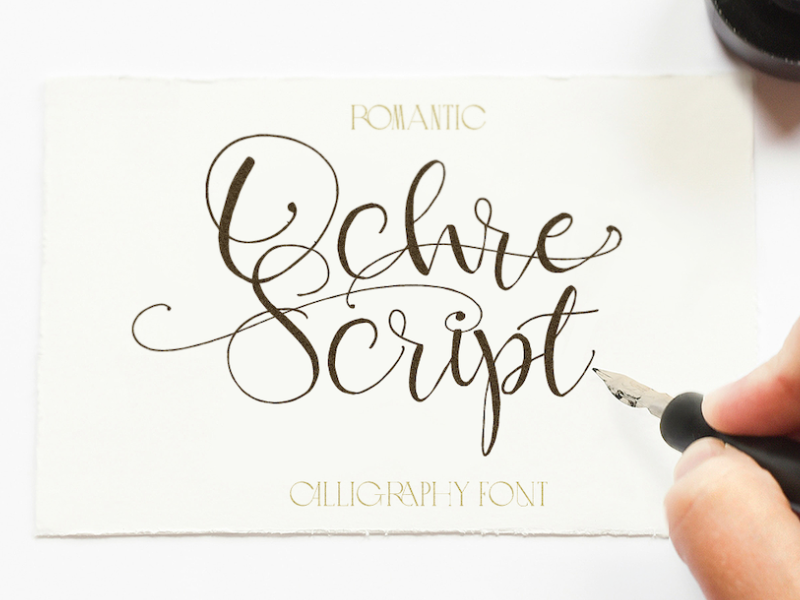
Ochre Script is a new free romantic calligraphy script font from Gizem Kili� . This hand drawn font will add a personal touch of elegance to any upcoming project PLEASE APPRECIATE ON BEHANCE: https://www.behance.net/gallery/90160479/OCHRE-SCRIPT-FREE-MODERN-CALLIGRAPHY-FONT Perfect for wedding stationery, cards, letters, etc. Free for personal & commercial use |